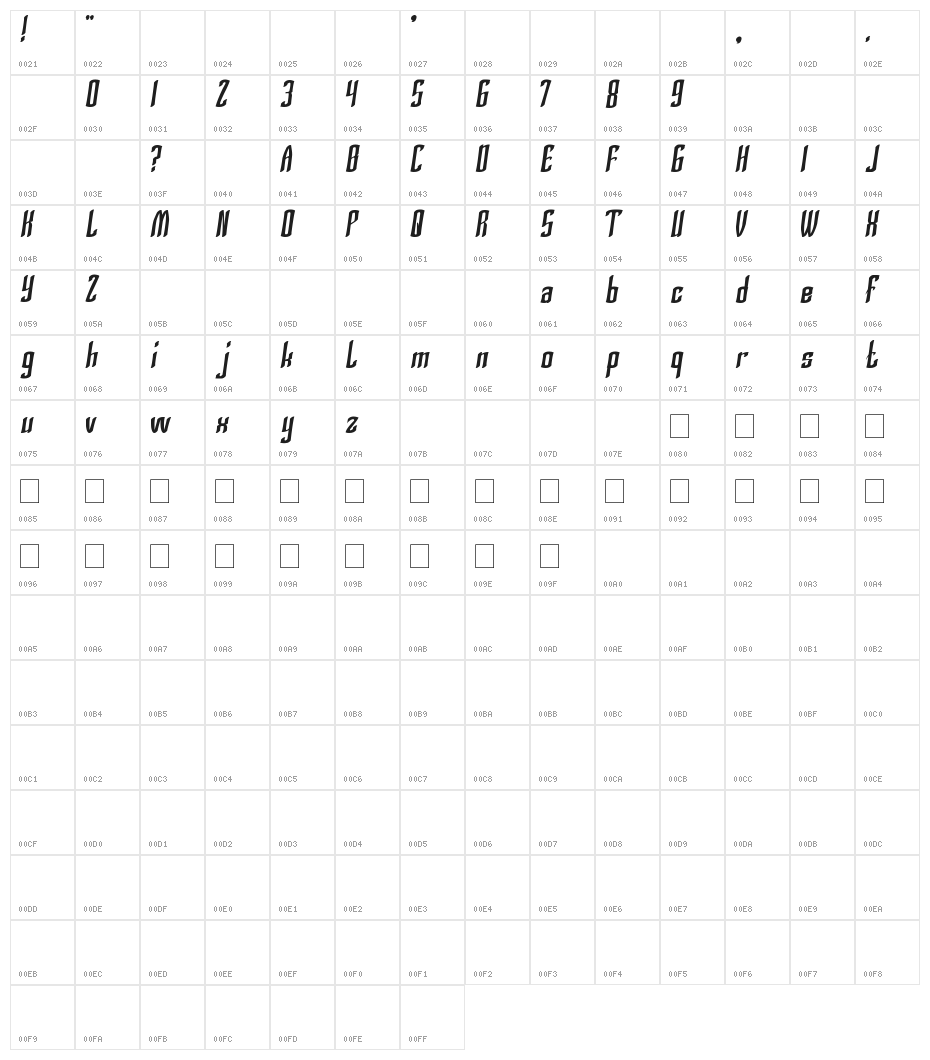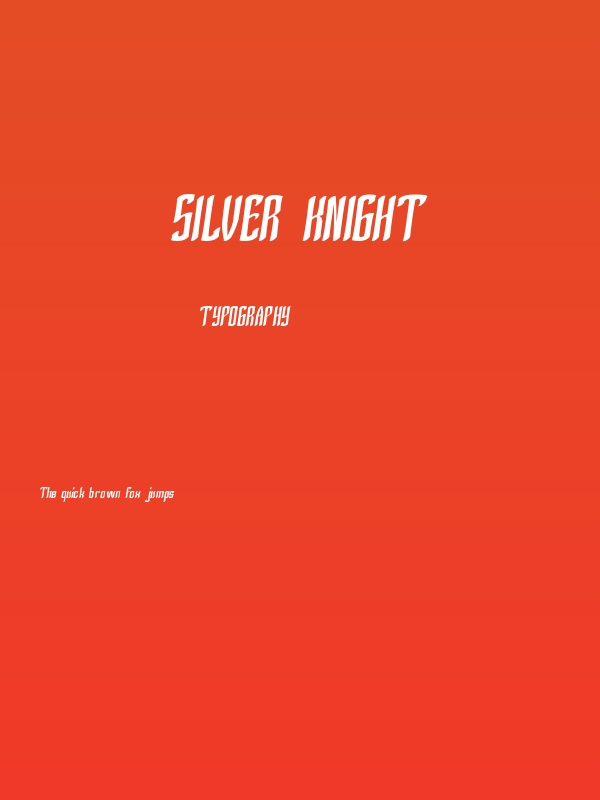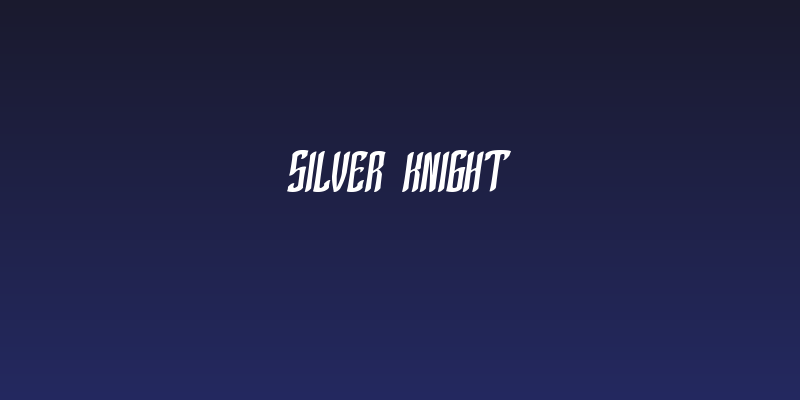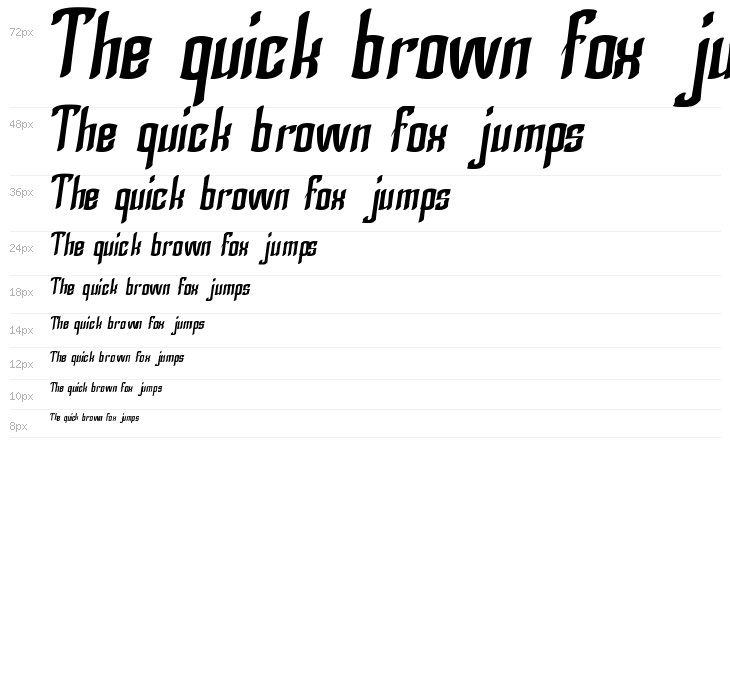
Silver Knight Font
Silver Knight Description
This font features a bold and dynamic style with a strong presence. The characters are slightly slanted, giving a sense of movement and energy. The strokes are thick and consistent, providing a robust and impactful appearance. The uppercase letters are tall and commanding, while the lowercase letters maintain a cohesive flow. The numerals are clear and bold, matching the overall aesthetic. Special characters are designed with the same boldness, ensuring uniformity across all glyphs. This font is ideal for projects that require a strong visual impact.